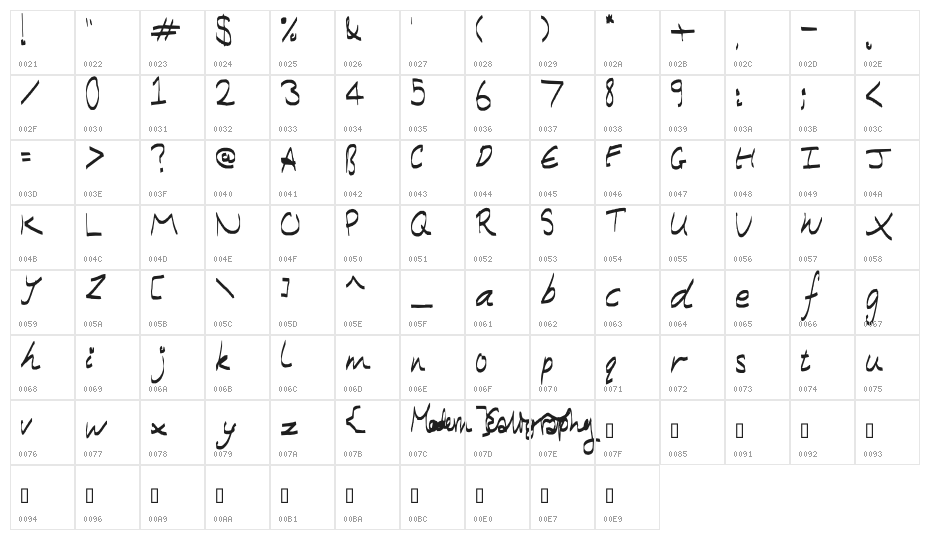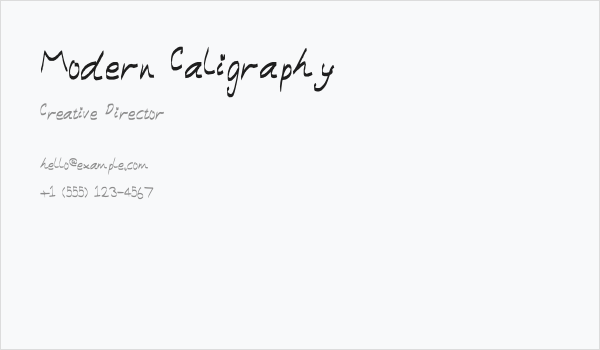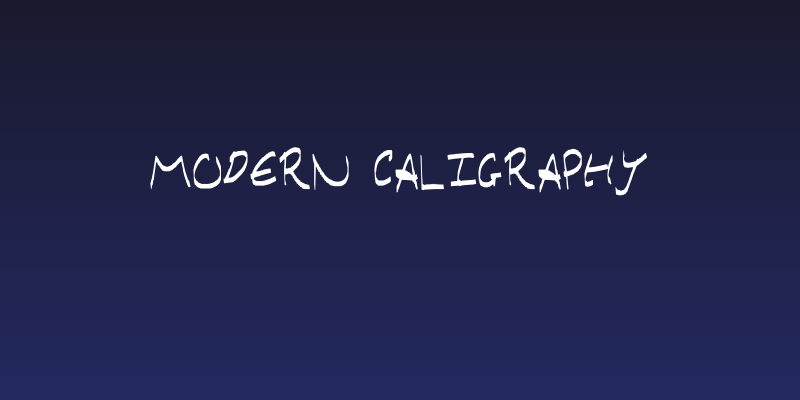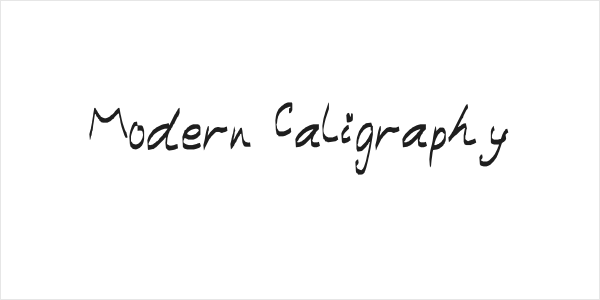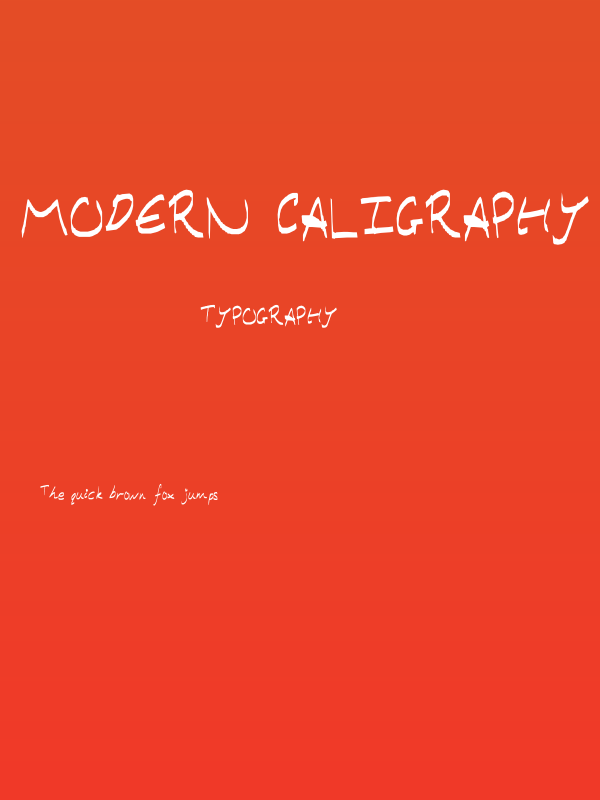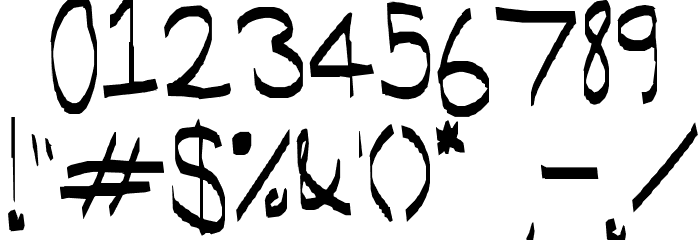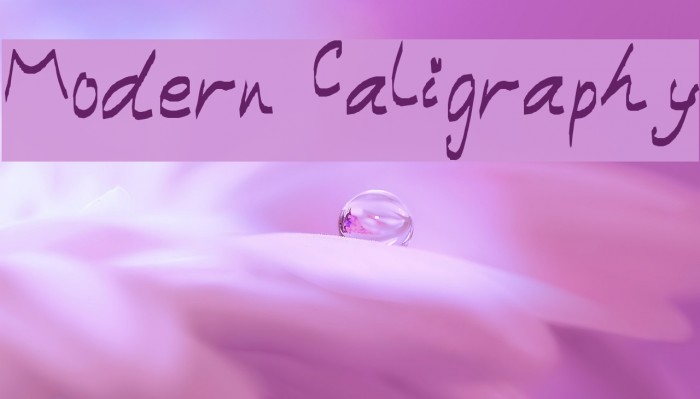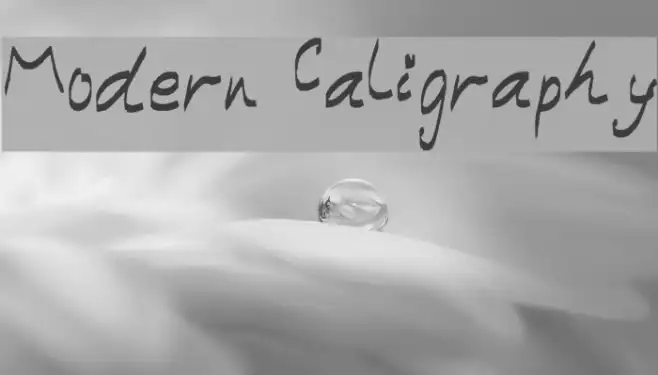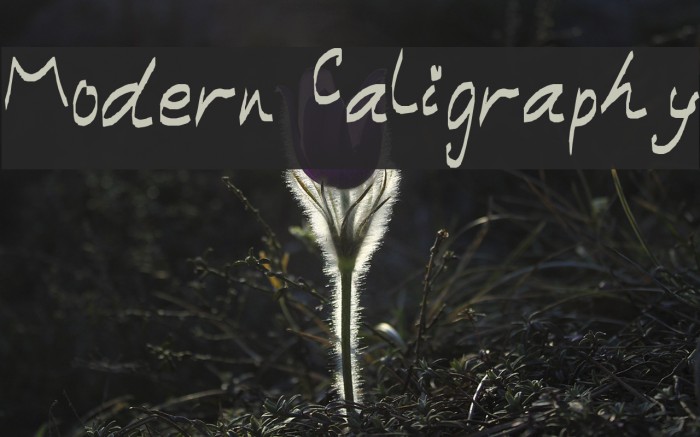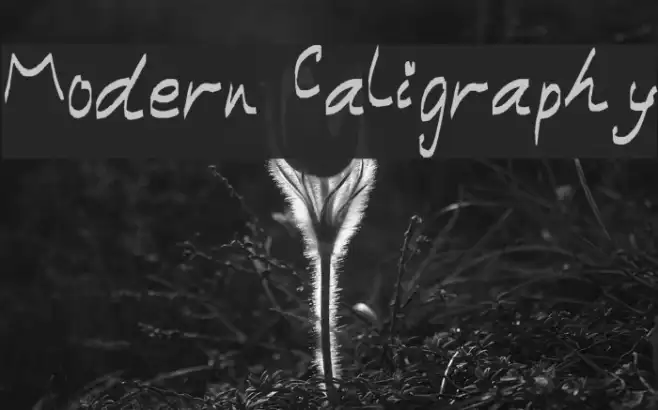
Modern Caligraphy Font
Modern Caligraphy Description
This font features a modern calligraphic style with a handwritten appearance. The letters are fluid and dynamic, showcasing a natural flow that mimics the strokes of a calligraphy pen. Uppercase and lowercase letters maintain a consistent style, with slight variations that add character and uniqueness. The numerals and special characters are designed to complement the alphabet, maintaining the same artistic flair. The overall look is both elegant and casual, making it suitable for a variety of creative projects.